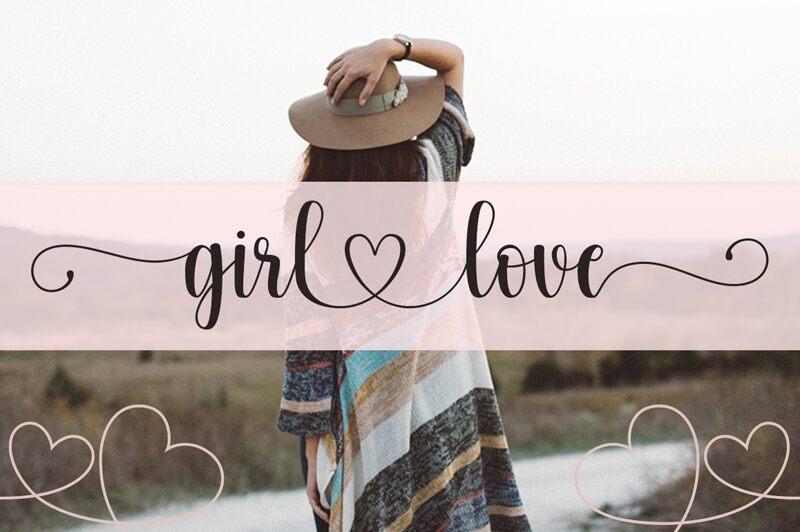
Gracefully flowing and brimming with feminine charm, the "Girl Love" font by Zane Studio captivates with its elegant calligraphic style. Each letter is meticulously crafted, seamlessly blending flowing curves and soft, inviting strokes. This font emanates a sense of romance and whimsy, making it an enchanting choice for a wide range of creative endeavors.
The "Girl Love" font's versatility shines through, lending itself beautifully to wedding invitations, greeting cards, fashion branding, and personal stationery. Its calligraphic flair effortlessly elevates any project, adding a touch of refined sophistication and timeless allure. Whether you're crafting a heartfelt love letter or designing a visually captivating logo, the "Girl Love" font by Zane Studio is a true gem that will elevate your work with its enchanting and distinctive style.